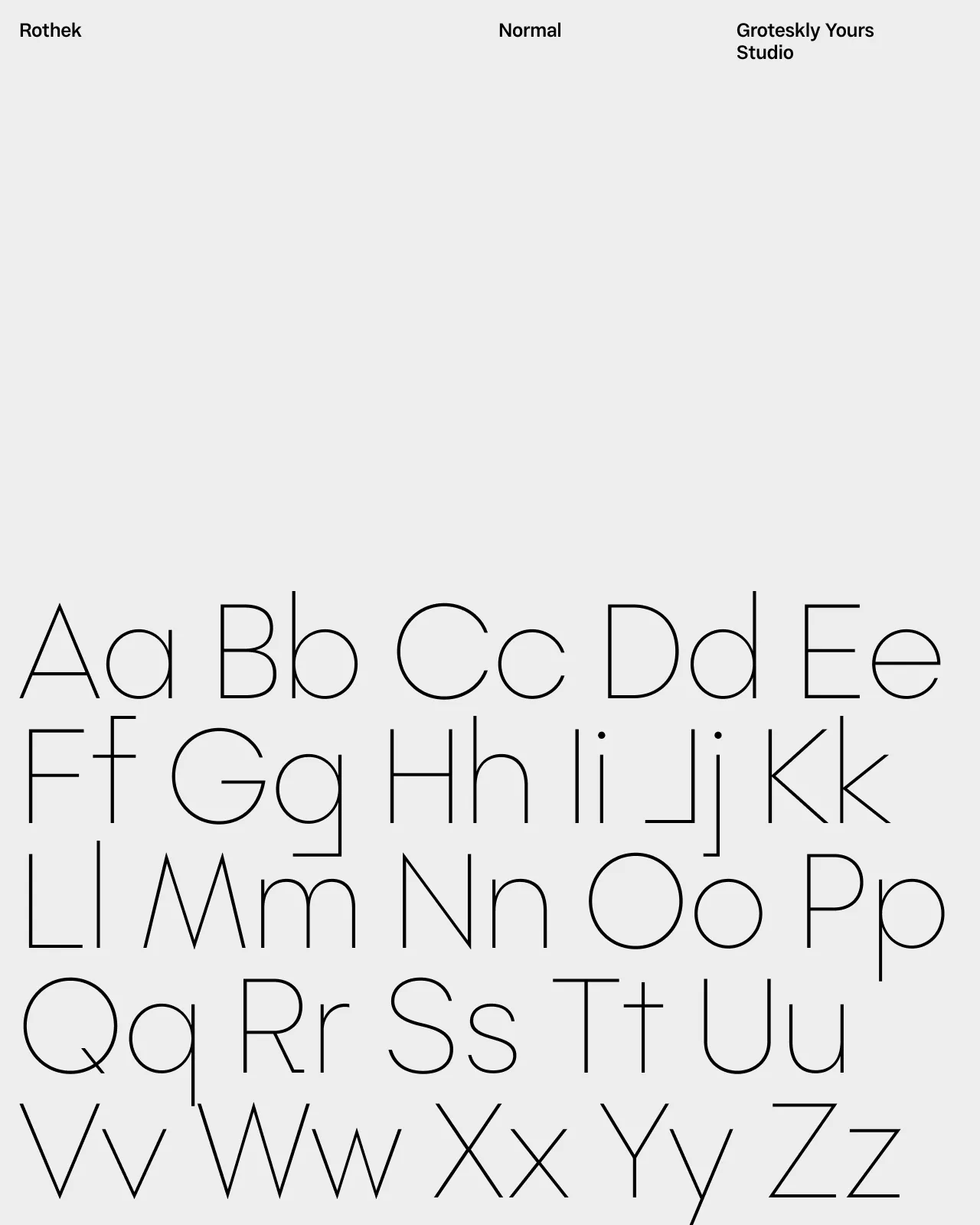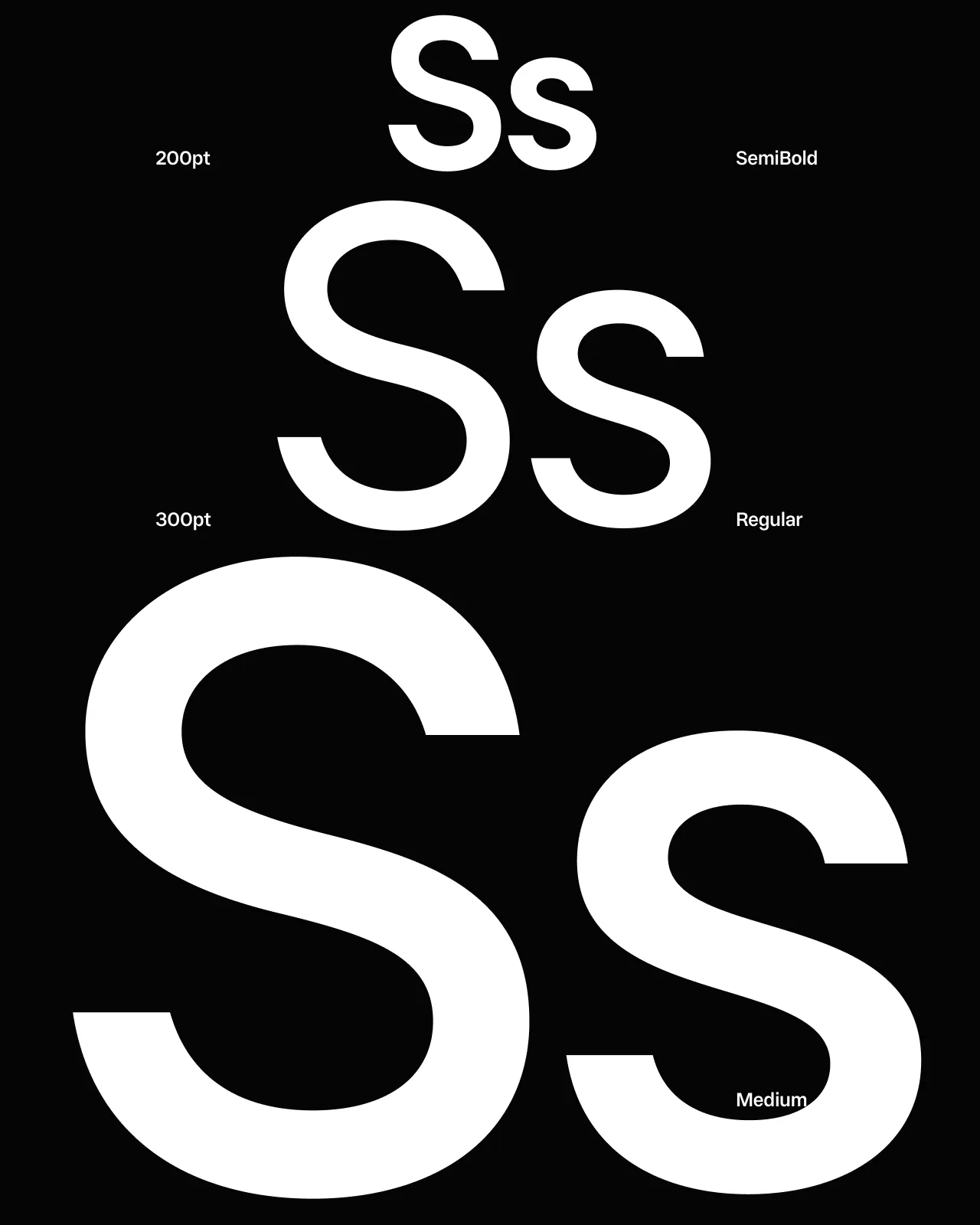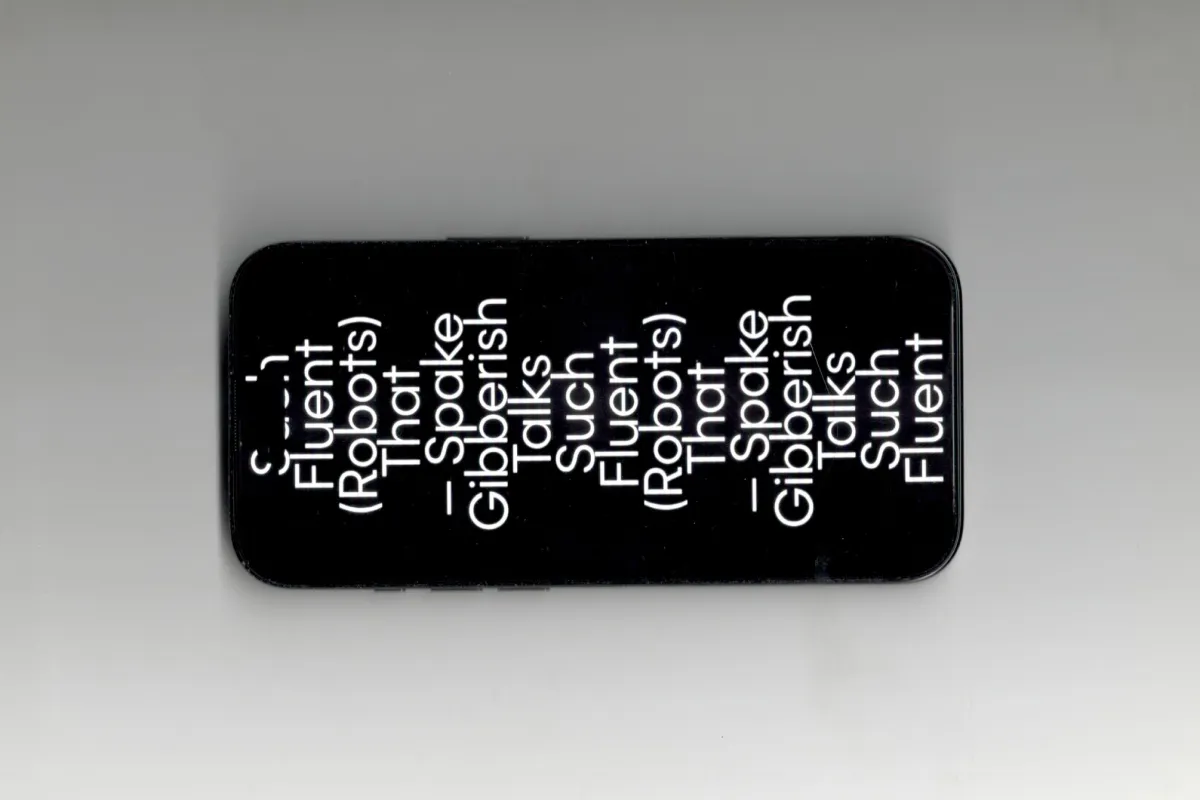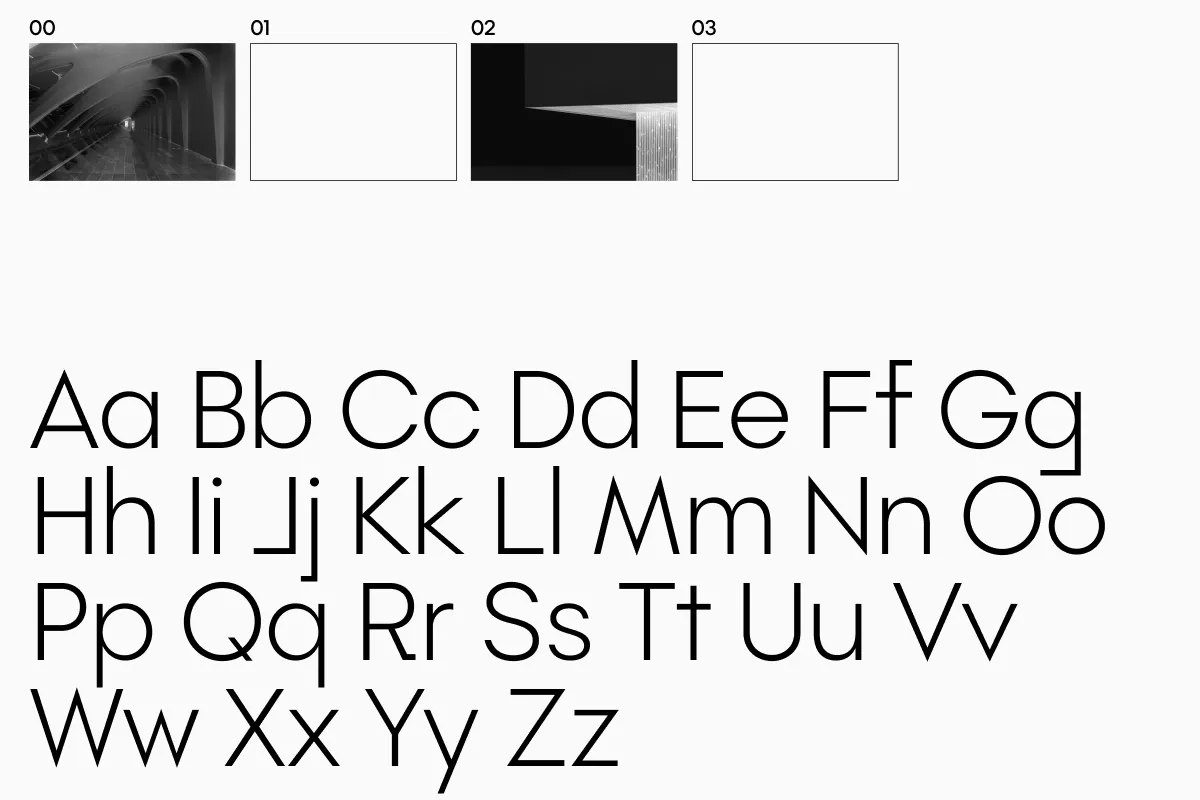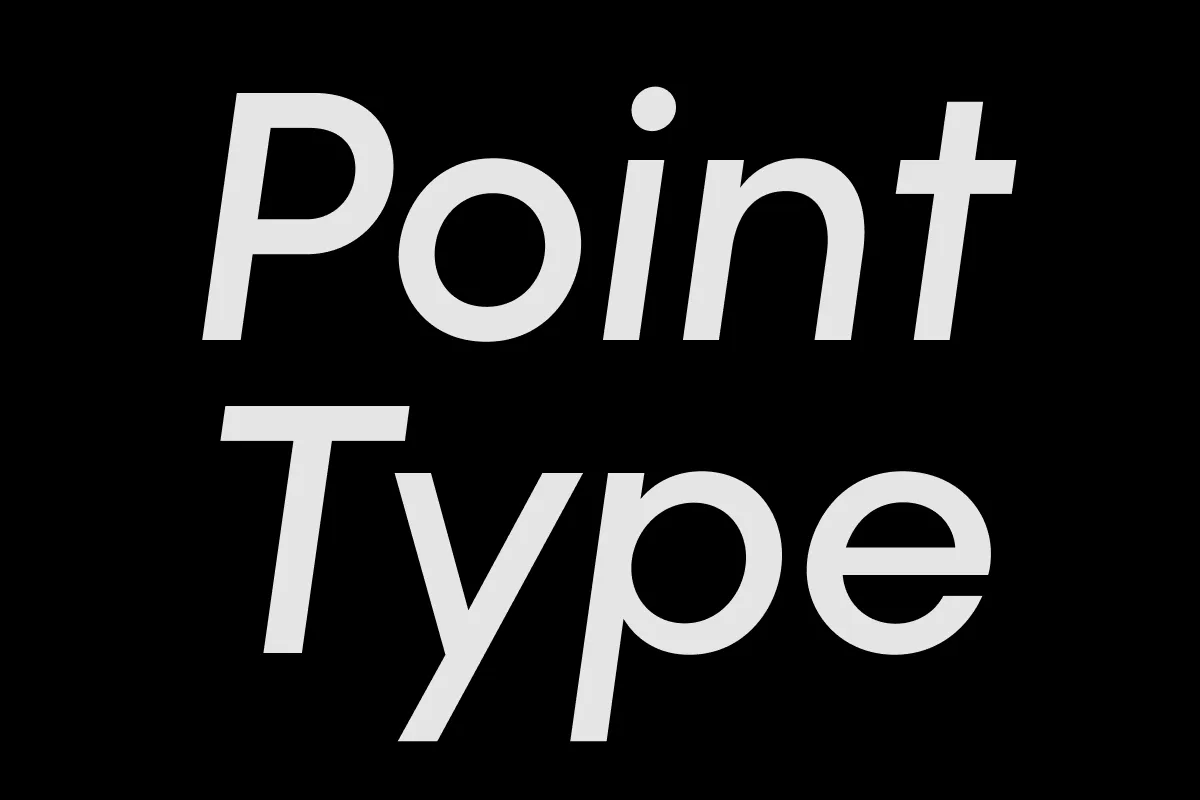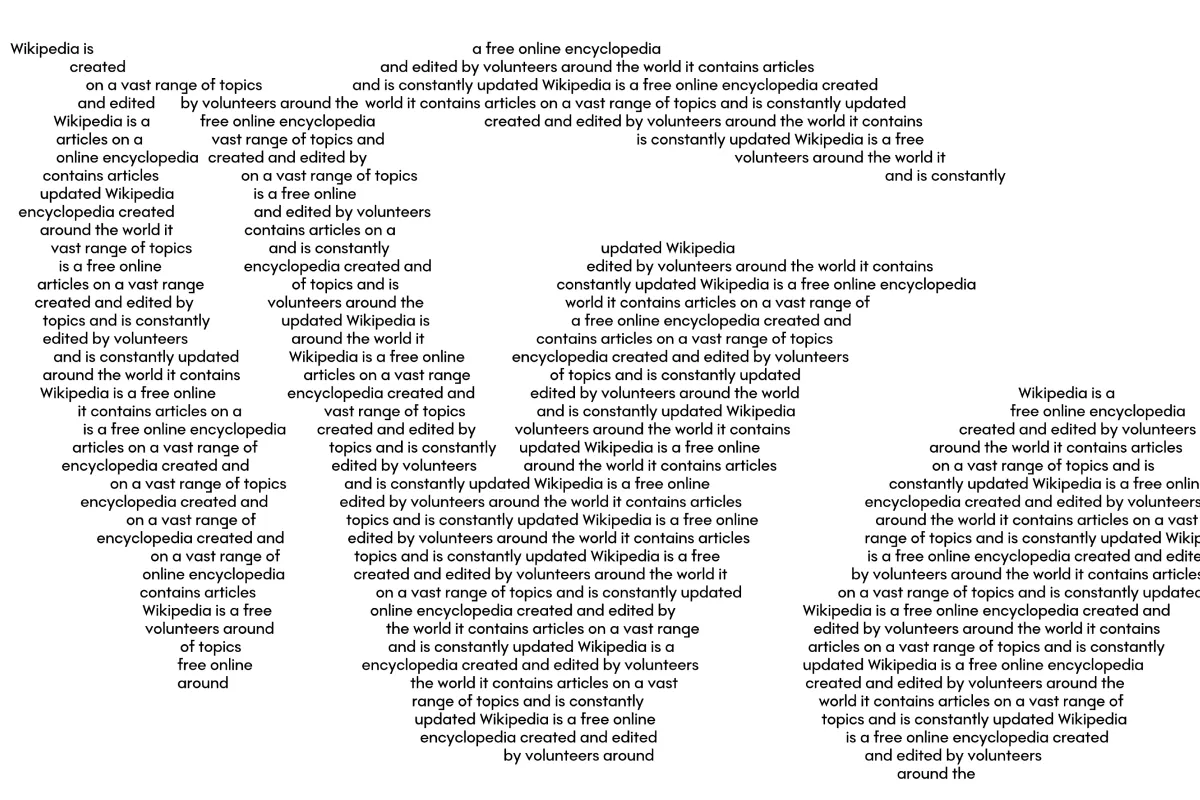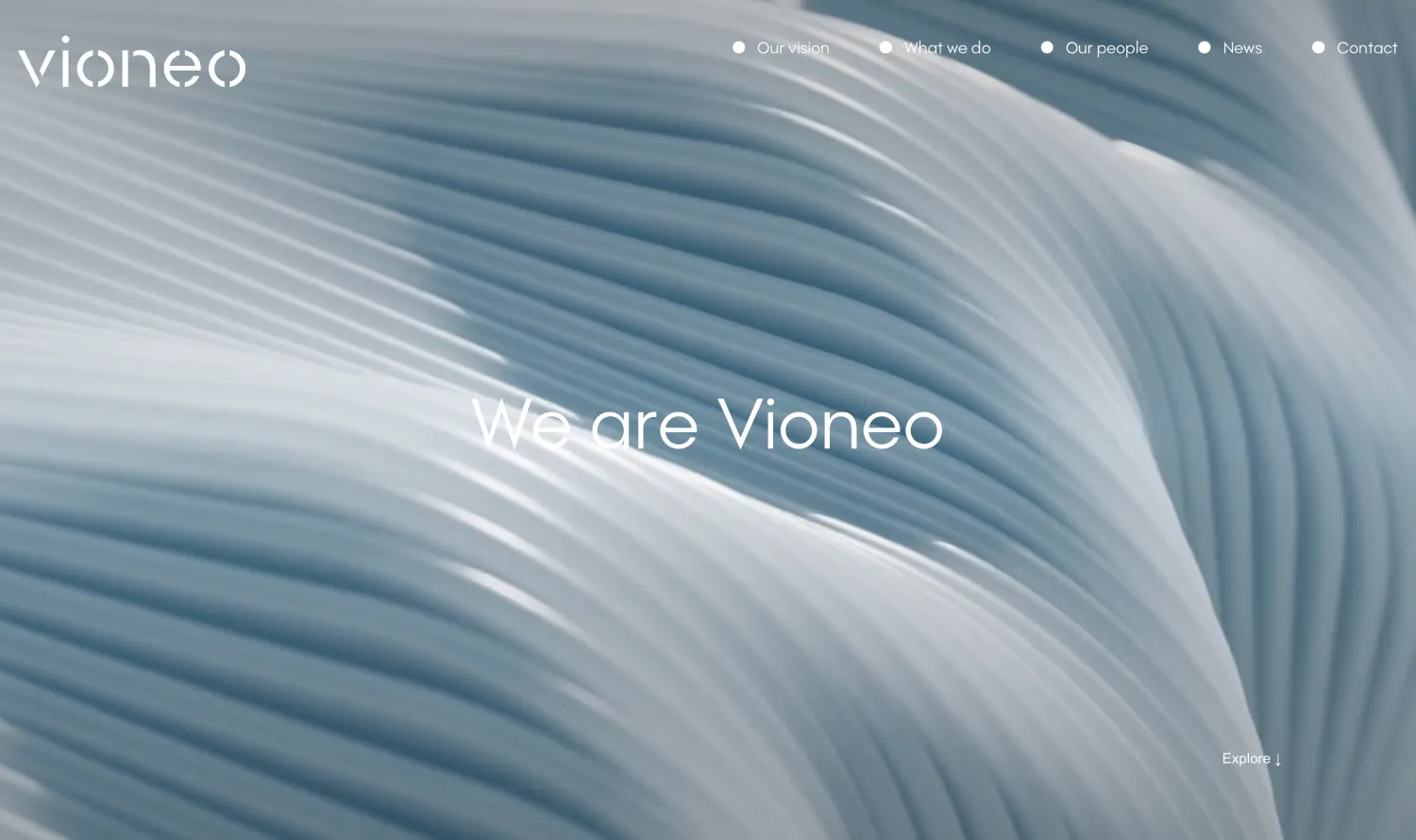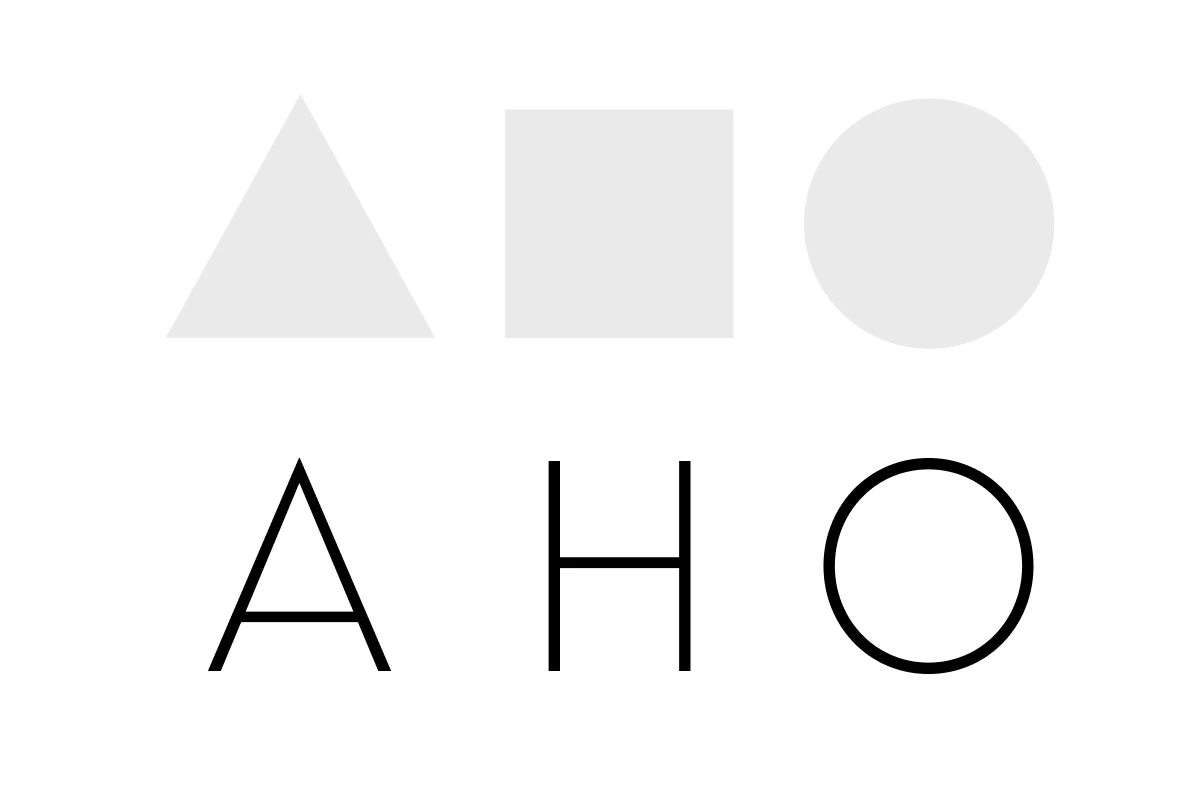
Rothek
Rothek is a sharp sans serif type family with Bauhaus font influences. The Rothek family comprises 22 static fonts (Hairline to Black) and 1 variable font. Designed and released in 2019 as one of the first original Groteskly Yours fonts, Rothek has undergone numerous updates, solidifying its position as one of the studio’s bestselling sans serif font families.
The most distinctive visual feature of Rothek is its sharp and clean outlines. From its inception, the goal was to create a type family that retained its distinct font character while embracing simplicity, accessibility, and minimalism. Flattened terminals and straightforward letterforms give Rothek its simple aesthetic, while tight and economical spacing enhances its minimalist vibe. These stylistic choices extend seamlessly to non-Latin scripts, including Cyrillic and Vietnamese, as well as special characters, ensuring a cohesive and accessible design for global applications.
Meticulously crafted as a versatile workhorse type family, Rothek excels in both its style and technical functionality. It supports numerous OpenType features, such as Case Sensitive Punctuation and Stylistic Alternates, empowering designers to tailor the typeface to their precise needs. Ideal as a sharp font for modern design, Rothek adapts effortlessly to various applications, including packaging, web design, and app design. Its balance of simple font details and modern aesthetic ensures it can elevate design projects across diverse creative disciplines, making it an indispensable tool for design professionals.
Designers
Eugene Tantsurin, Anna Remm